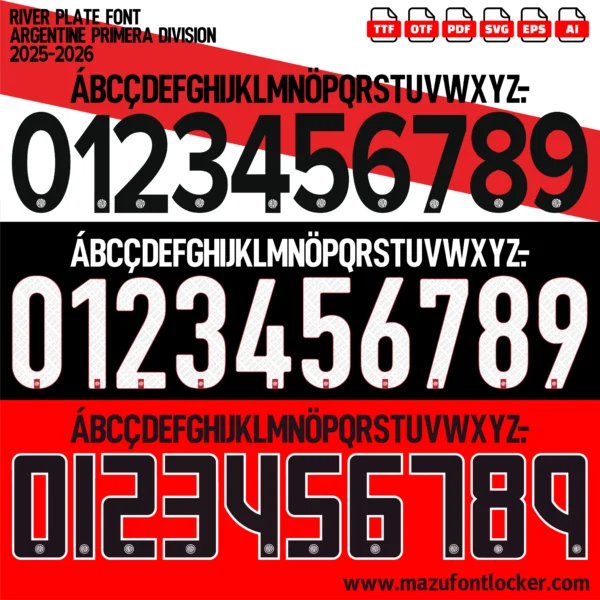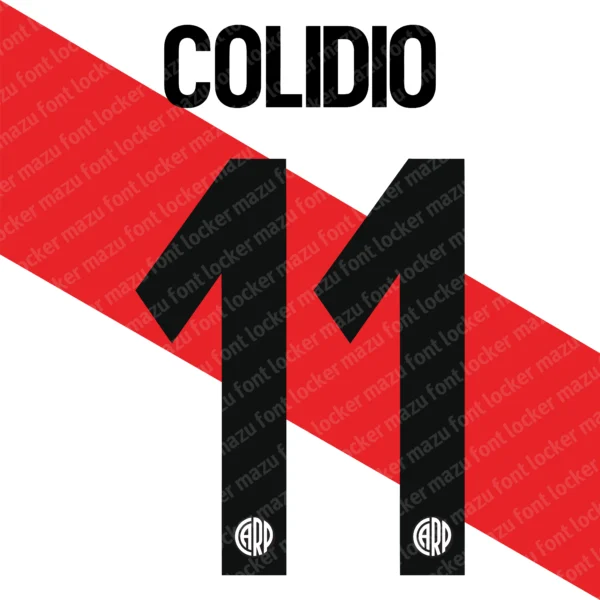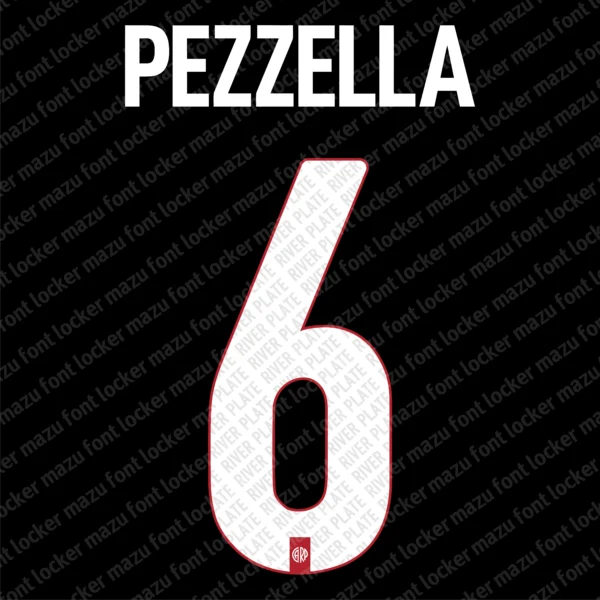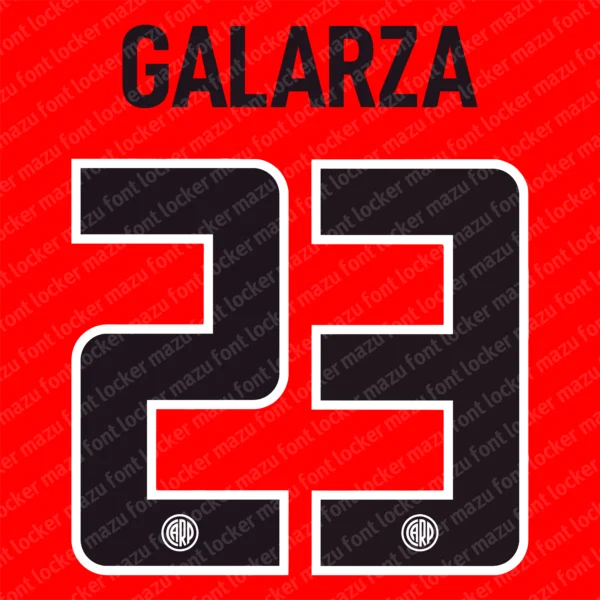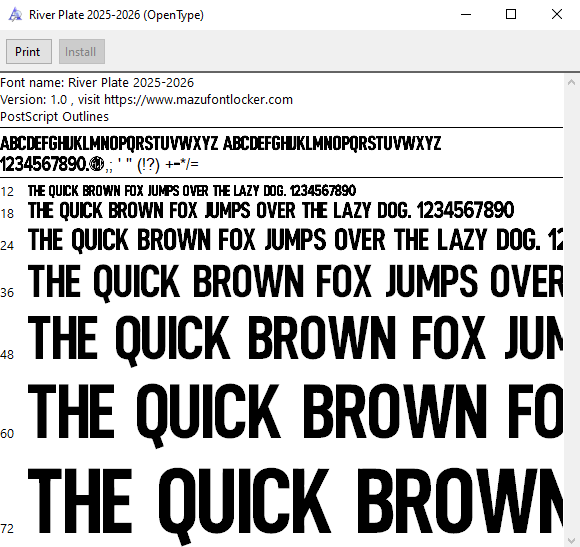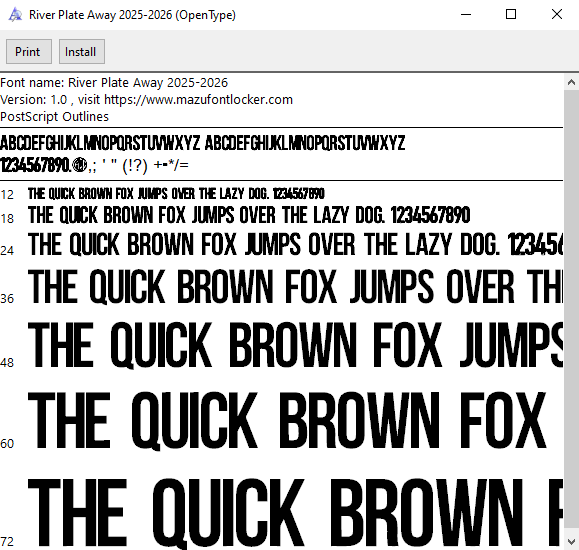
River Plate 2025-2026 Font Vector – Stunning Millonarios Masterpiece
This font captures the sharp, precision-crafted lettering inspired by River Plate’s legendary red sash, historic Argentine football heritage, iconic club identity, and unforgettable 2025-2026 era — delivering premium authenticity and classic match-day energy for professional jersey mockups, football graphics, sports branding, fan designs, and high-end creative projects.
River Plate 2025-2026 Font Vector – Stunning Millonario Football Typeface
The River Plate 2025-2026 Font Vector is a premium football typeface designed to recreate the distinctive lettering associated with Club Atlético River Plate during the 2025-2026 era. This high-quality vector font kit captures a bold, modern, clean, and instantly recognizable football typography style inspired by Los Millonarios’ iconic white and red identity and legendary Argentine football heritage.
Designed for professional graphic designers, football enthusiasts, jersey collectors, and passionate River Plate supporters, the River Plate 2025-2026 Font Vector delivers an authentic contemporary football aesthetic for creating realistic jersey mockups, football merchandise, social media graphics, match posters, squad designs, banners, and custom fan artwork. Every character has been carefully recreated to reflect the powerful and distinctive visual style associated with one of Argentina’s most historic football clubs.
Why Choose River Plate 2025-2026 Font Vector
This font stands out thanks to its precise vector construction and authentic football styling. Every letter and numeral has been meticulously recreated to deliver a distinctive football lettering aesthetic inspired by River Plate’s 2025-2026 period and its celebrated Argentine football heritage.
Whether you’re producing professional football kit templates, modern jersey concepts, Argentine football graphics, matchday posters, squad designs, or eye-catching football content, the River Plate 2025-2026 Font Vector delivers a genuine match-ready appearance inspired by the identity of Los Millonarios.
The lettering featured in the River Plate 2025-2026 Font Vector combines strong geometric lines with balanced football proportions. The result is a premium and highly readable typeface that reflects River Plate’s traditional red and white identity, historic Argentine football heritage, and iconic status in South American football.
- Complete uppercase A–Z alphabet and numbers 0–9 in authentic River Plate 2025-2026 inspired style
- Create authentic River Plate 2025-2026 home and away jersey mockups
- Design professional Argentine football posters, squad graphics, and modern matchday artwork
- Produce custom River Plate-inspired football merchandise and fan projects
- Build powerful football graphics celebrating River Plate’s modern era
- Create custom football jersey numbers and player-name designs
River Plate 2025-2026 Era
The 2025-2026 period represents a modern chapter in River Plate’s long and celebrated football history. During this era, Los Millonarios continued competing at the highest level of Argentine football while maintaining their iconic red-and-white identity and strong presence in South American football.
The River Plate 2025-2026 Font Vector is inspired by the distinctive football typography and visual identity associated with the club during this period, making it an excellent choice for designers creating modern jersey concepts, Argentine football posters, squad graphics, football artwork, social media designs, and fan-made projects.